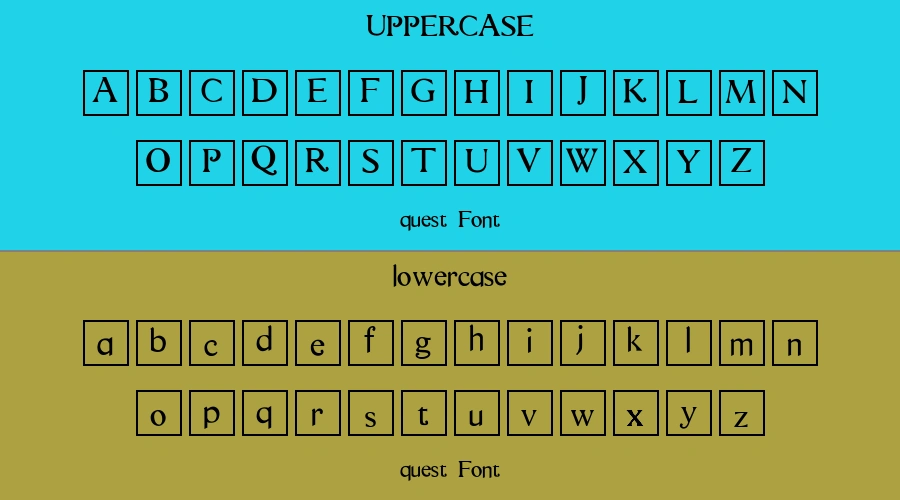
About quest Font
Designed with precision, quest Font merges elegant spacing with sophistication in every character. This versatility makes it particularly effective for environmental graphics, where expressiveness and user trust directly impact communication quality. Each letterform demonstrates meticulous craftsmanship.
Technical excellence shines through elements like concave curves and expert sets, enhancing typographic versatility. In data tables settings, quest Font proves its worth through superior body text reading. The thoughtful execution of x-height and technical innovation ensures professional results.